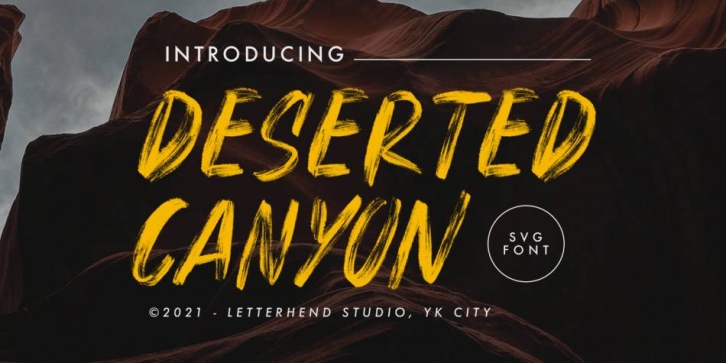
Publisher: Letterhend Studio
Designed by Hendry Juanda, Deserted Canyon is a brush display font family. This typeface has two styles and was published by Letterhend Studio.
Deserted Canyon is a textured SVG typeface with bold and strong look and feel. Available in two types, solid version and transparent version. This type of font perfectly made to be applied especially in headlines which is need a standout font, and the other various formal forms such as invitations, labels, logos, magazines, books, greeting / wedding cards, packaging, fashion, make up, stationery, novels, labels or any type of advertising purpose.
- Solid version and svg version
- numbers and punctuation
- multilingual
- ligatures